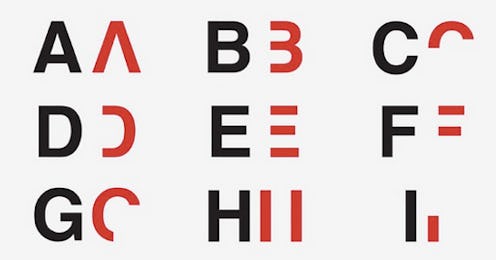
This Is How It Feels To Read With Dyslexia
If you grew up with a family member who is dyslexic, or have struggled with dyslexia yourself, you know that it's a disability most people don't fully understand. It's something we acknowledge as a learning disability, but in a lot of cases, our knowledge doesn't extend beyond that. Daniel Britton created Dyslexic Typeface to raise awareness for dyslexia, because his font shows how hard it is for people with dyslexia to read. Britton created it at the London College of Communication and it's gotten a huge swell of support on the Internet recently.
In a self-published article on Bored Panda, Britton said, "I created a typeface that would be almost illegible so that it would slow down the reading pace of a non dyslexic person to the speed of a dyslexic and in return recreating the frustration, the embarrassment of reading with the condition."
Britton has spent his entire life trying to explain the feeling of reading with dyslexia and now, with his new type face, he will spare thousands of others the constant need to explain. He feels that he has a responsibility to help those in a similar situation to him. Britton told Bustle, "I feel that as a designer you can create something which is beautiful, which is fine, we all like to be surrounded by aesthetically pleasing things, or you can create something to help someone else."
When looking closely at this font, keep in mind Britton's explanation of Dyslexia, from his blog:
"For most people the letters and numbers do not jump around on the page and the colours remain the same, it is simply a break down in communication between they eye and the brain, for most people you can see the information, you can see perfectly each and every letter form but there is something in your mind that is stopping or slowing the process of information and for most this is Dyslexia."
Here's the font:
And here are the sketches of the font in Britton's notebook:
Britton hopes this typeface will gain even more media attention and is thrilled that people are reaching out to learn more about how he deals with dyslexia. He plans to create a Dyslexia Awareness educational pack to send to schools, hoping it will educate parents and teachers on how best to deal with dyslexia.